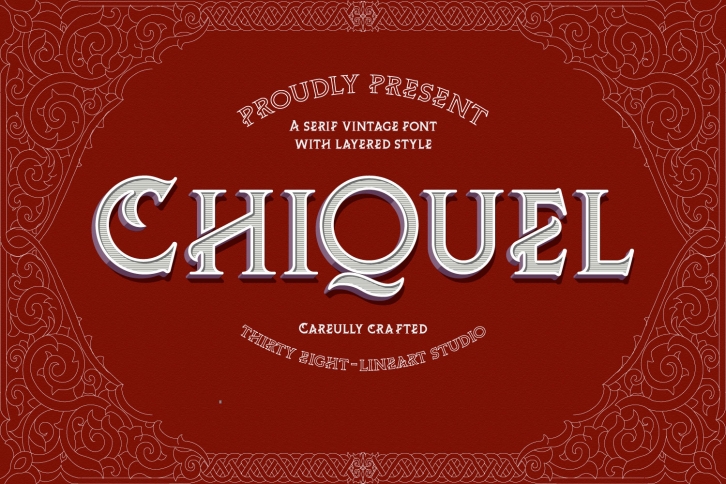
ChiQuel Serif Vintage FONT Download
ChiQuel Serif Vintage is a gorgeous font that was realeased on September 4, 2019. The font can be used in many style contexts and design environments. Perfect for invitations, magazines, websites, logos, and more! It was designed by 38-lineart and the file size is 18.17 MB. Thanks for checking out this font!